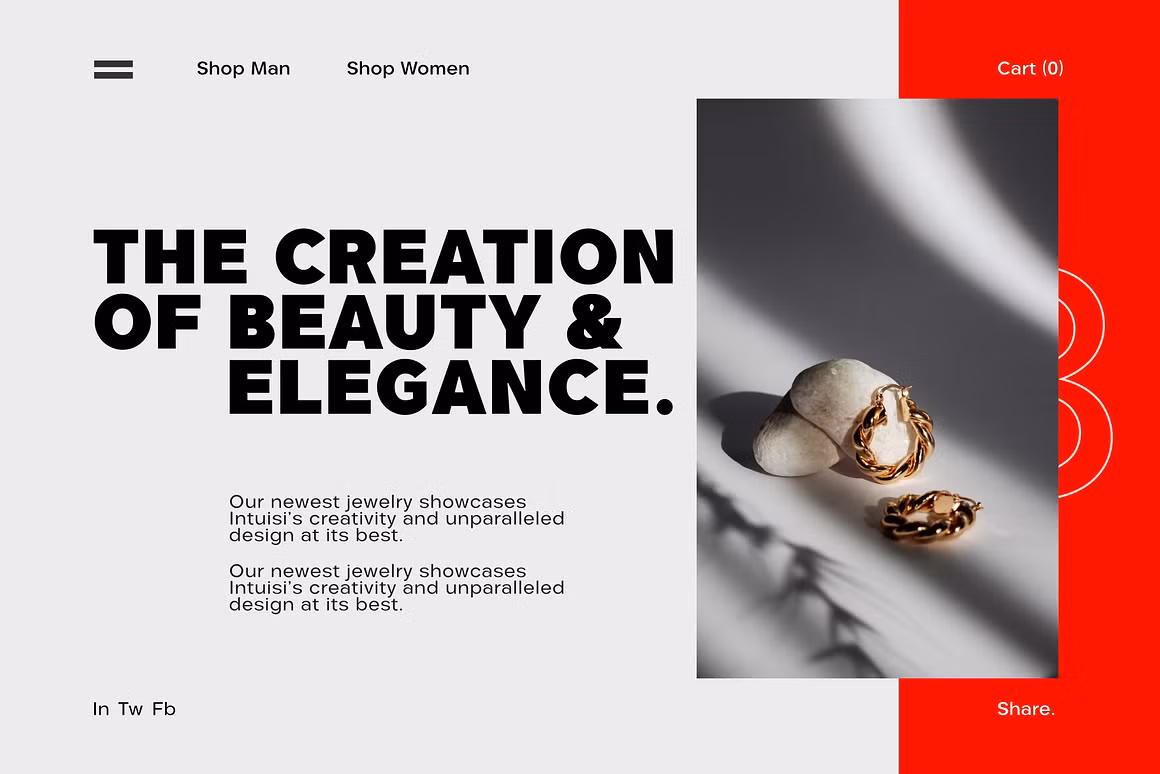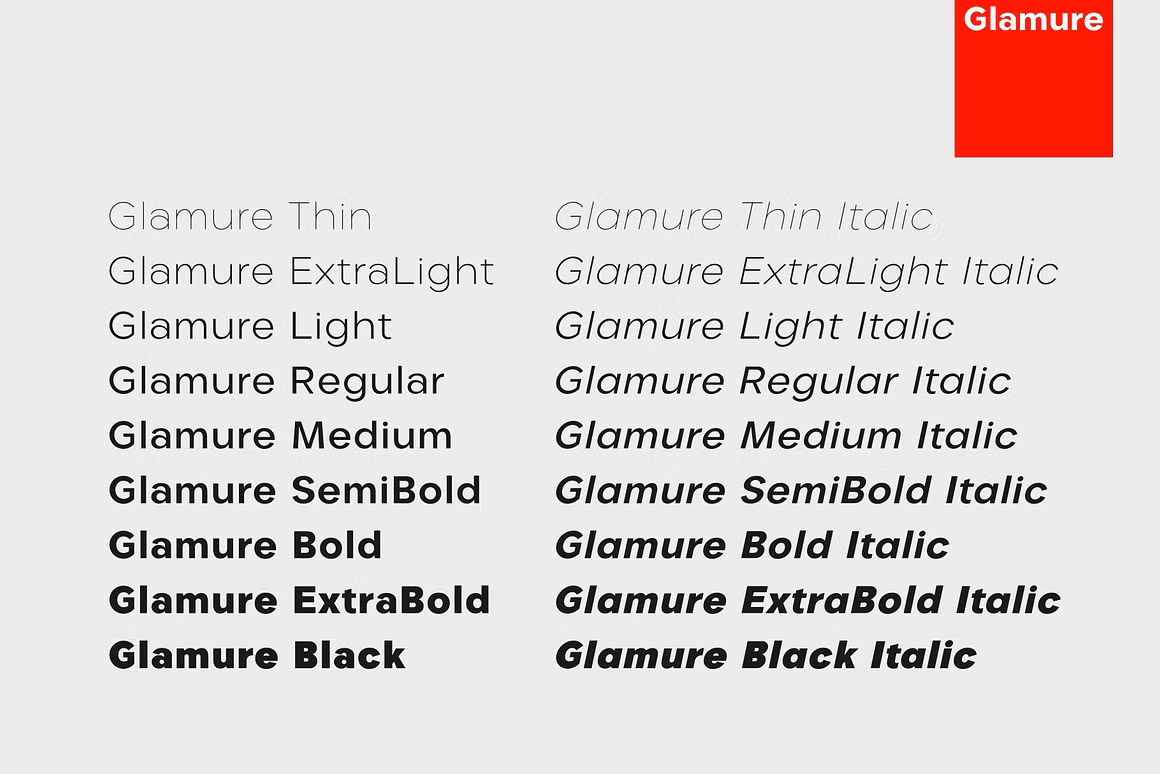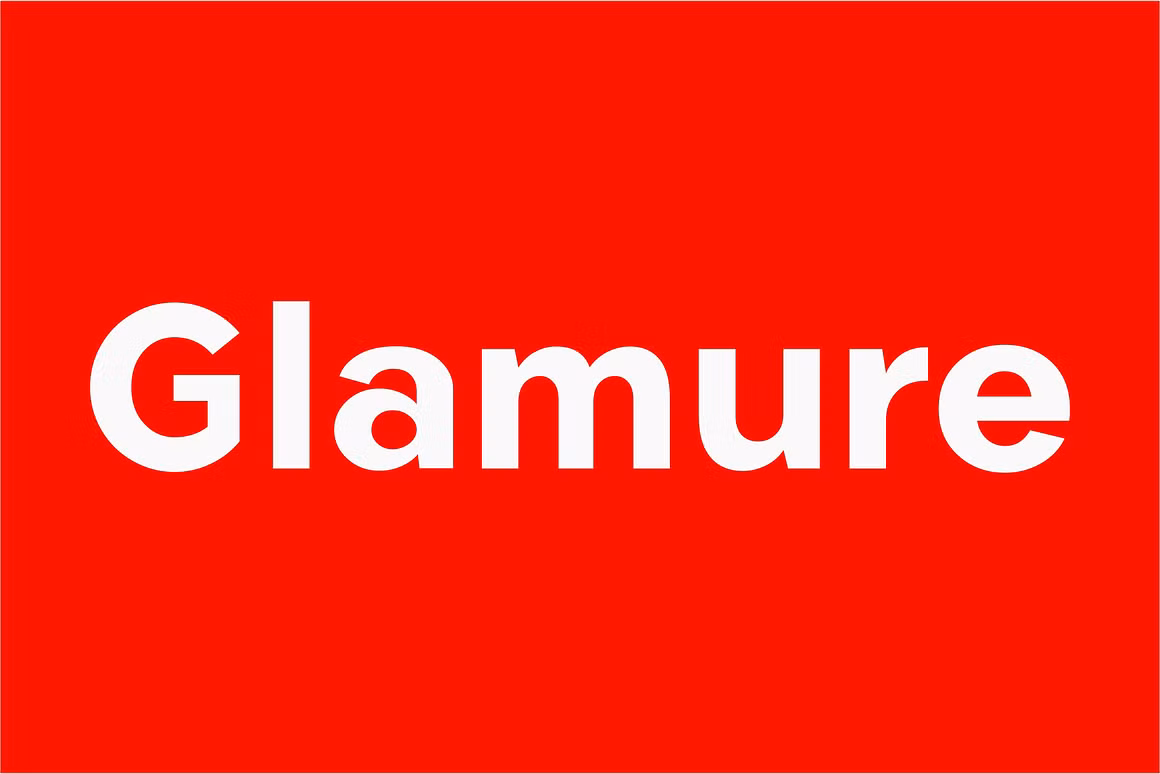
Glamure Font
The features incorporated on Glamure include the Myriad font that has been used by technology firms and governments starting from the 1990s. Glamure can be considered as a clean, line and multipurpose font that has been created from applying geometric shapes to design this superb, contemporary and organic fonts. These elements can embrace a title, a logo, the body text, a subtitle, a headline, etc.
Glamure Sans Serif Font